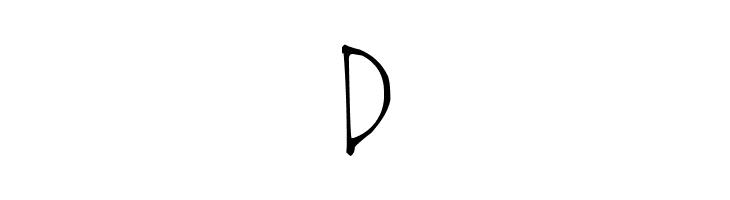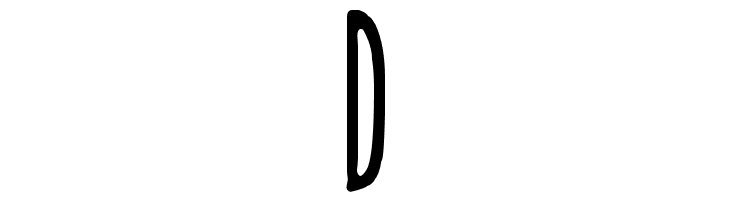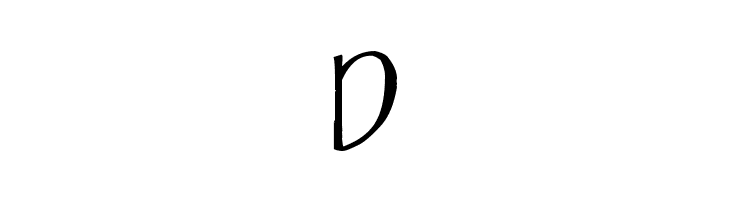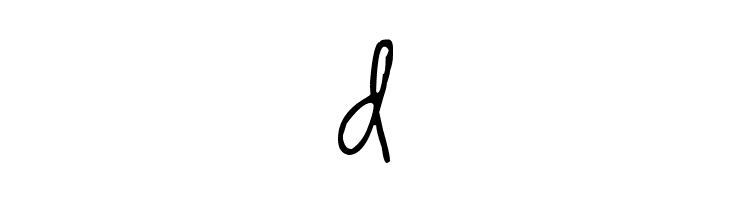
A whimsical, hand-drawn font with tall, narrow letters and playful curves.
A playful, hand-drawn font with irregular strokes and a whimsical style.
A decorative font with elongated, narrow letterforms and high contrast strokes.
( Fonts by Christopher Hansen )
A whimsical, decorative font with swirling embellishments and a fairy-tale style.
A bold slab serif font with strong, block-like serifs and a vintage-modern appeal.
A bold, oblique slab serif font with strong, dynamic strokes.
Hand-drawn furniture and decor illustrations as font glyphs.
Illustrative dingbat font with diverse pictorial scenes and objects.
A playful, handwritten font with a whimsical and friendly appearance.